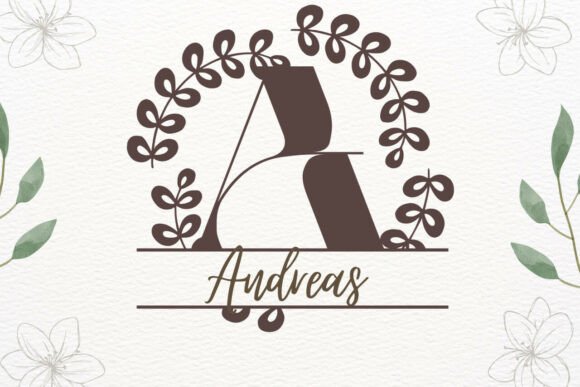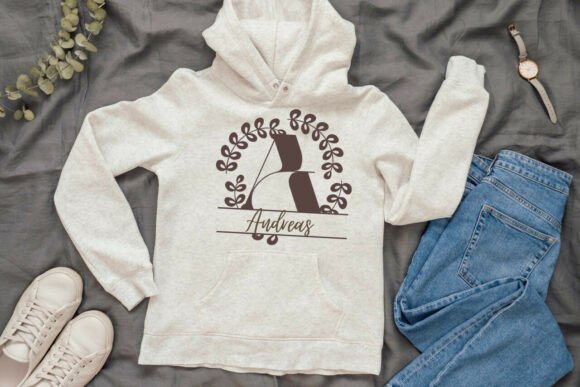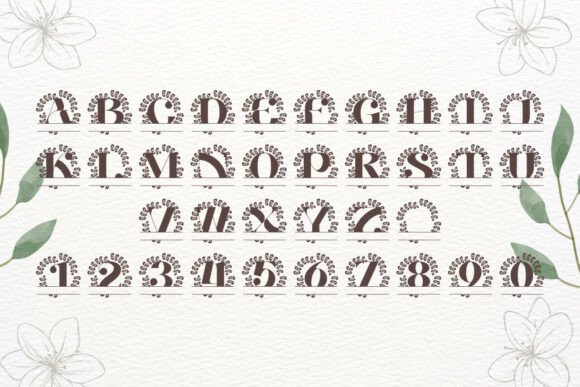
Designing a Personal Touch
Have you ever found yourself rummaging through your stash of scrapbook paper and glittery stickers, desperate to create the perfect keepsake for a loved one’s special day? The pressure to get it just right can be overwhelming, but what if you could create a beautiful, custom nameplate in seconds? Enter the Avelynne Split Monogram Font, a game-changing tool that turns initials into elegant, clear nameplates with ease.
This versatile font is a must-have for designers and crafty enthusiasts alike, offering a unique way to add a personal touch to gifts, signs, and home decor. With its balanced spacing and refined layouts, the Avelynne Split Monogram Font shines in a variety of applications, from wedding gifts to family signs and door hangers. Its adaptability and ease of use make it a valuable addition to any designer’s toolkit.
Avelynne Split Monogram Font Key Features
- Font Family: Avelynne Split Monogram Font, a unique and elegant monogram font
- Character Set: Includes uppercase and lowercase letters, numerals, punctuation, and special characters
- Unique Characteristics: Features a distinctive split monogram design, with the letter “A” split into two parts, creating a sense of elegance and sophistication
Avelynne Split Monogram Font Review
I’ve had the chance to work with the Avelynne Split Monogram Font, and I must say it’s a unique addition to any design project. Here are my thoughts:
- The font’s monogram design is perfect for creating elegant and sophisticated logos, letterheads, and invitations.
- The split design adds a touch of modernity and flair to any text-based design.
- The font is highly customizable, allowing you to adjust the size, color, and spacing to fit your design needs.
- The Avelynne Split Monogram Font is a great choice for designers looking for a unique and eye-catching font to add to their toolkit.
- The font may be too ornate for some designs, so it’s essential to use it sparingly to avoid overwhelming the viewer.
- The split design may not be suitable for all text-based content, such as long paragraphs or body text.
- The font may require additional styling to ensure it looks its best in different contexts.
The Avelynne Split Monogram Font is a great addition to any designer’s toolkit, but it’s essential to use it judiciously. With its unique design and high customizability, it’s perfect for creating elegant and sophisticated designs. However, its ornate nature may make it unsuitable for all projects. With a little creativity and styling, the Avelynne Split Monogram Font can be a game-changer for your next design project.
- Use it in conjunction with other elegant fonts for a cohesive look.
- Use it in creative ways, such as in logos, invitations, or other custom designs.
The Avelynne Split Monogram Font is commonly used in:
- Business logos and branding